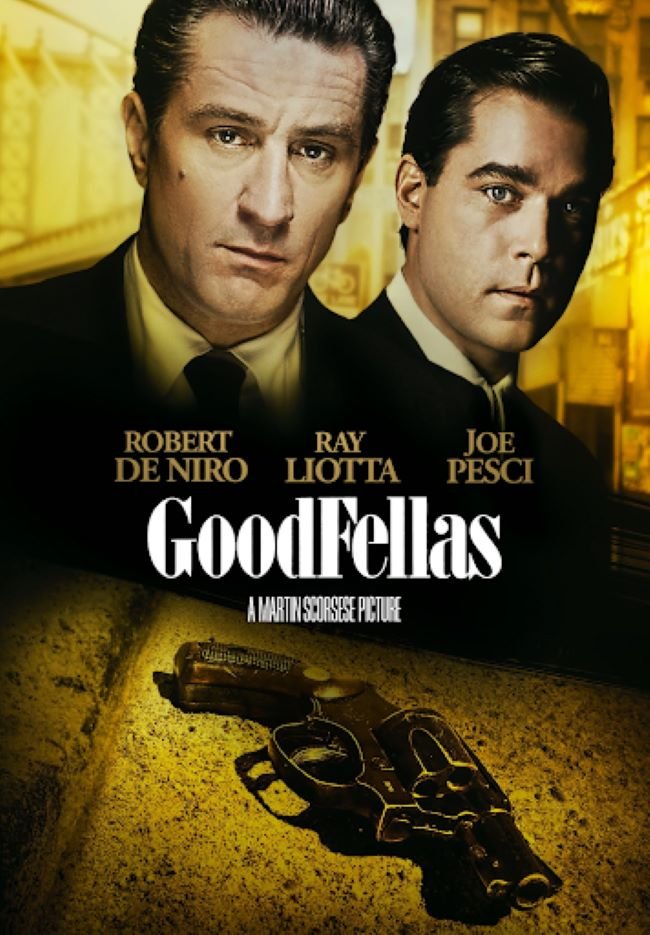
Goodfellas Font
Goodfellas font walks a razor’s edge between elegance and menace — and that tension is exactly what makes it so compelling. Martin Scorsese’s 1990 crime masterpiece didn’t need flashy typography to announce itself; the clean, refined serif style of the opening title did the work quietly, setting up a world where sophistication and violence coexist without contradiction. The closest freely available match is Boden Esperanto, a typeface that captures the same cinematic poise with its smooth lines and understated authority.
For designers looking to channel that distinctly Scorsese atmosphere — the kind that feels like a tailored suit worn in a back-alley meeting — this font is an ideal starting point. It works particularly well for editorial layouts, crime-themed poster designs, retro branding projects, and any creative work that needs to feel both polished and a little dangerous, as if the glamour is just a thin cover for something darker running underneath.